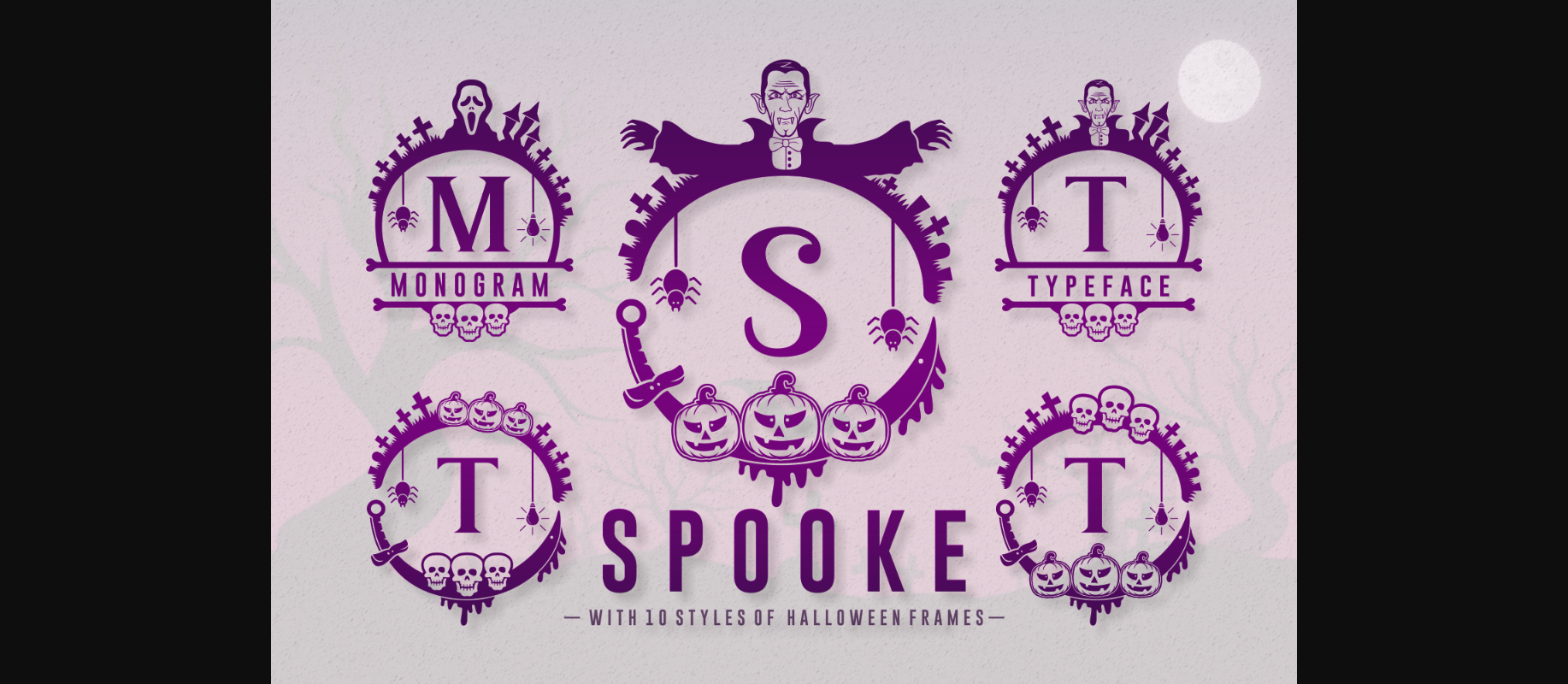
About Spooke Font
Spooke is a highly detailed and spooky decorative font. It is perfectly suitable for any Halloween-related project or crafty idea! Spooke is PUA encoded which means you can access all of the glyphs and swashes with ease!